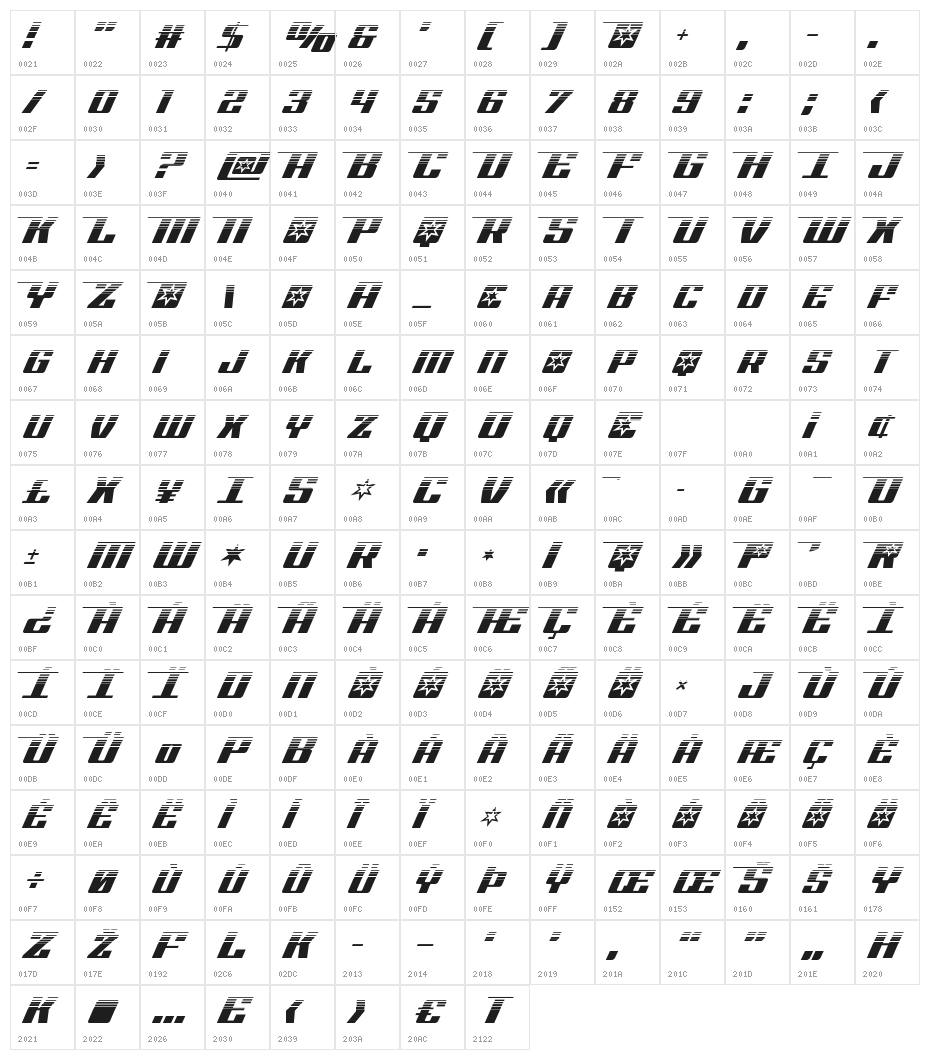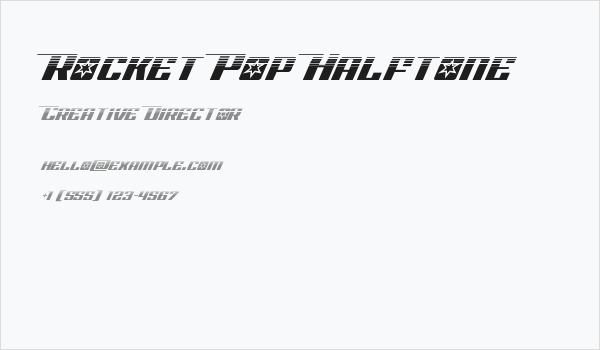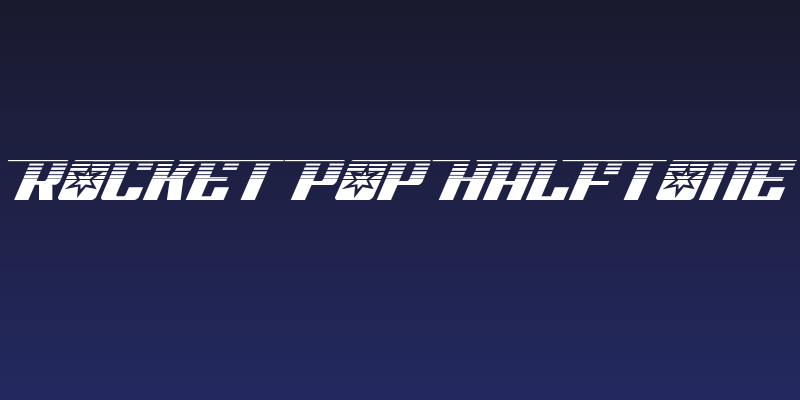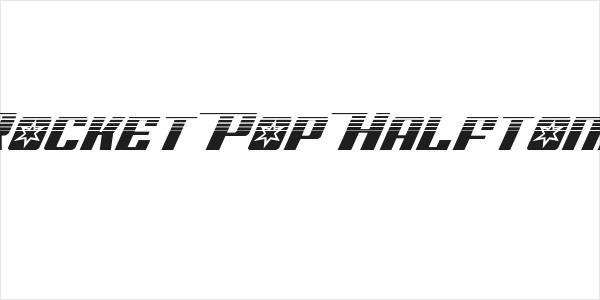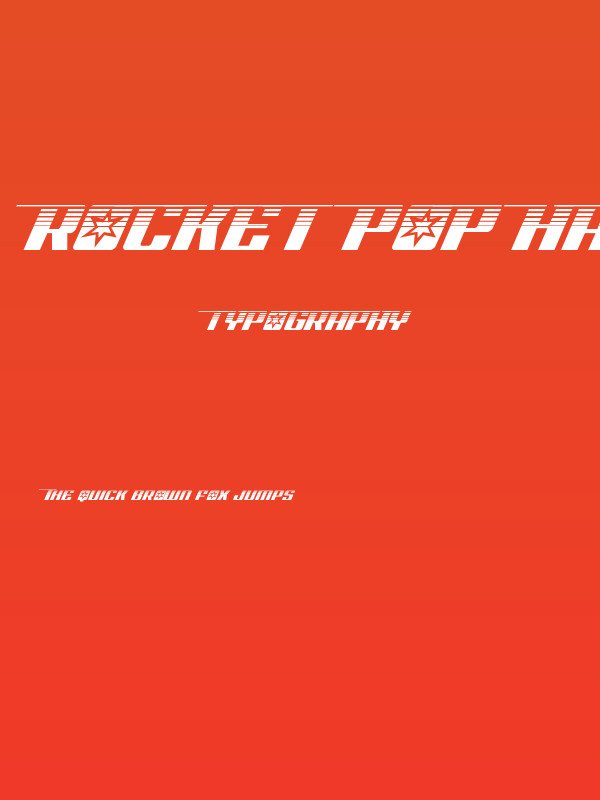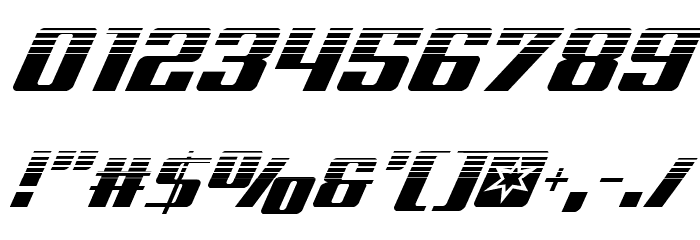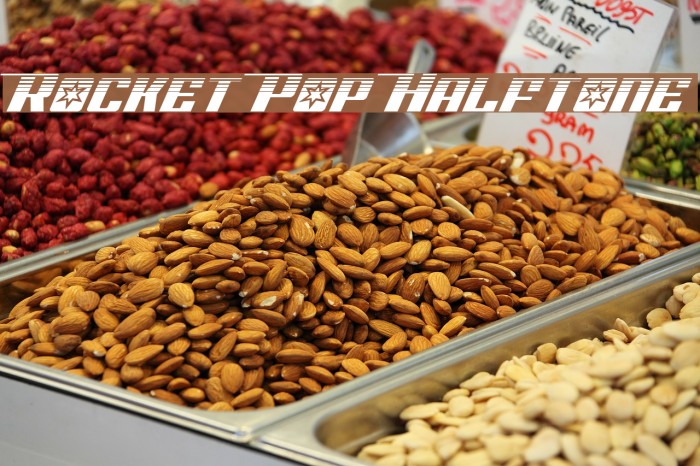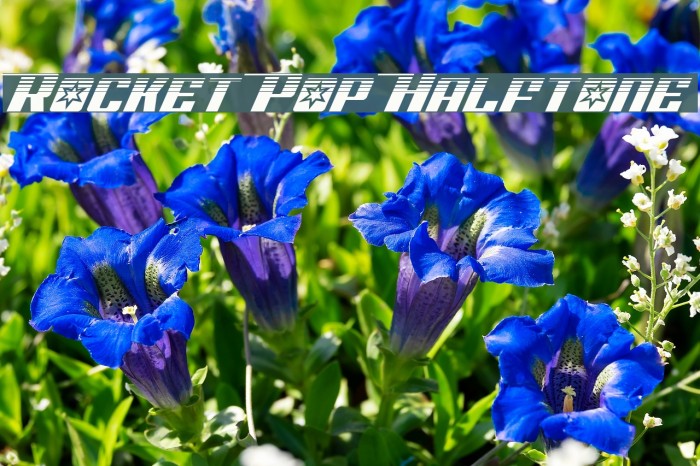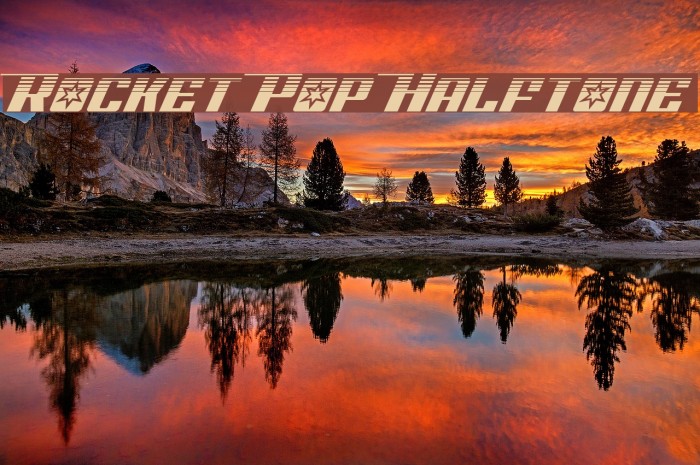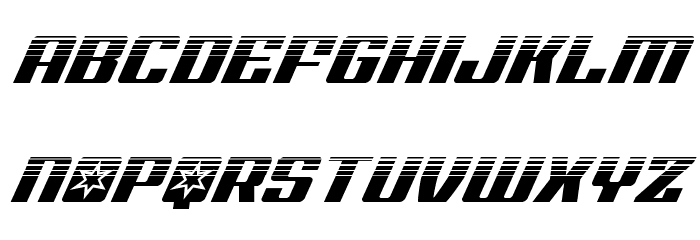
Rocket Pop Halftone Font
Rocket Pop Halftone Description
This dynamic and bold typeface features a futuristic and sporty design, characterized by its slanted, italicized letters and unique halftone pattern. The uppercase letters are particularly striking, with some characters incorporating star motifs, adding a playful yet edgy touch. The font's design is reminiscent of speed and movement, making it ideal for projects that require a sense of energy and modernity. The numbers and special characters maintain the same bold and dynamic style, ensuring consistency across all text elements.
| Proposed Projects | Ideal for sports branding, futuristic designs, video game titles, and dynamic posters. |